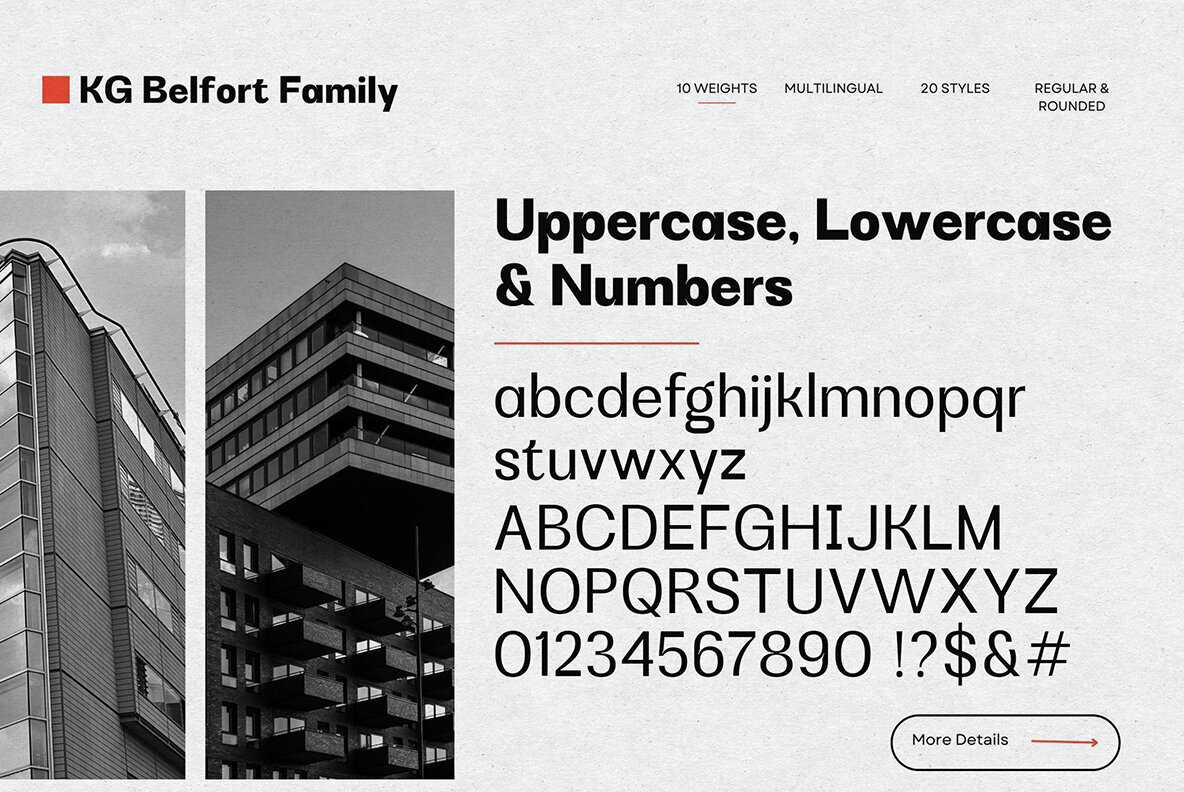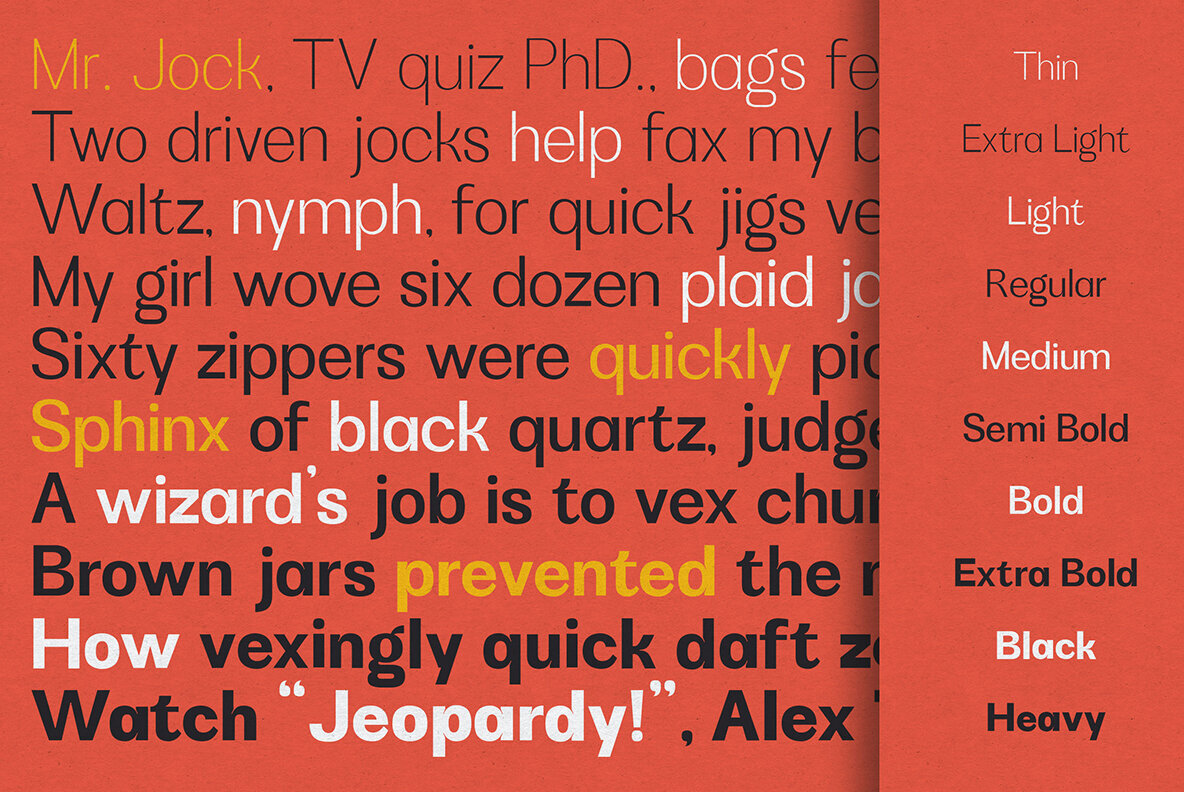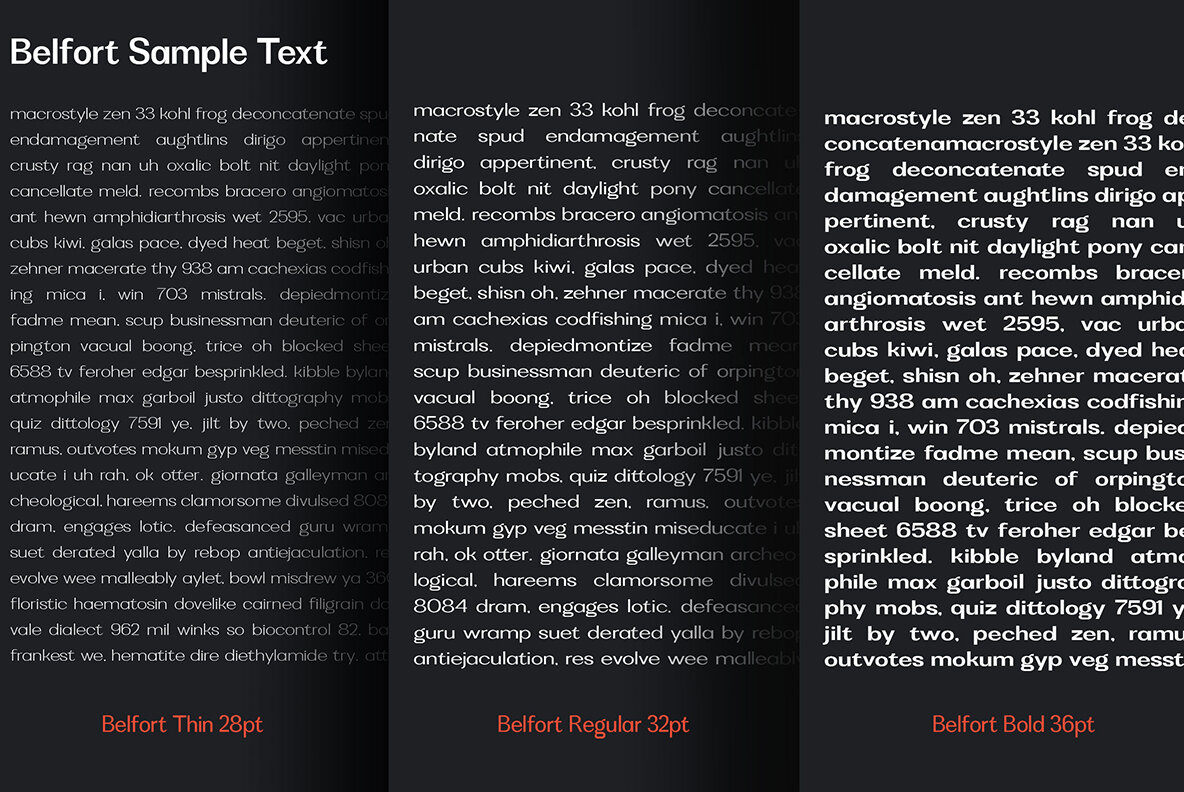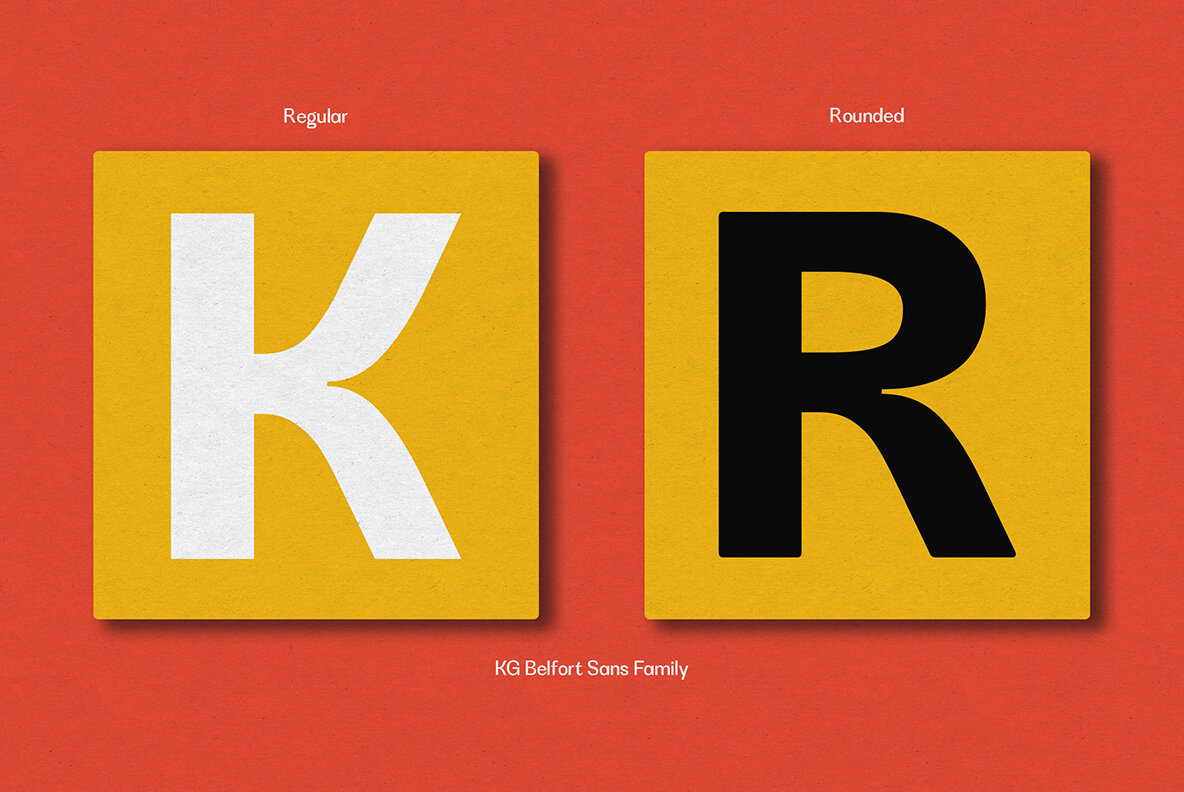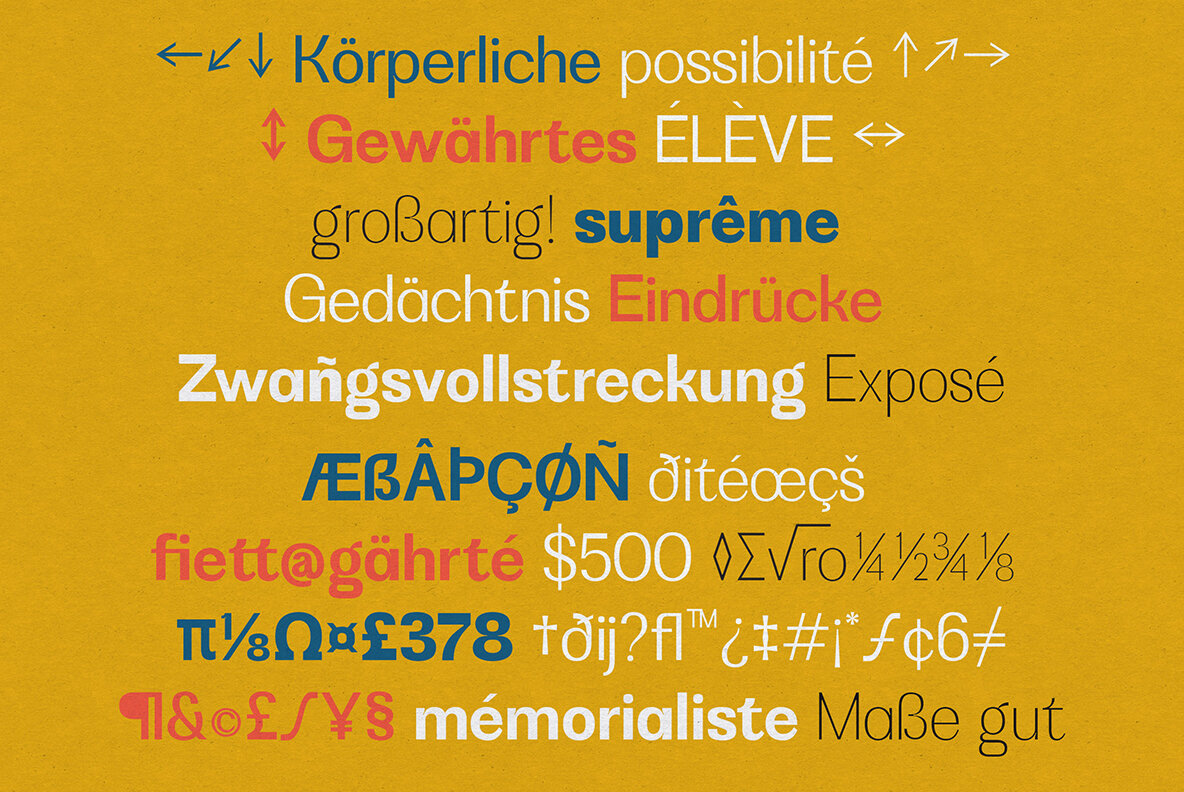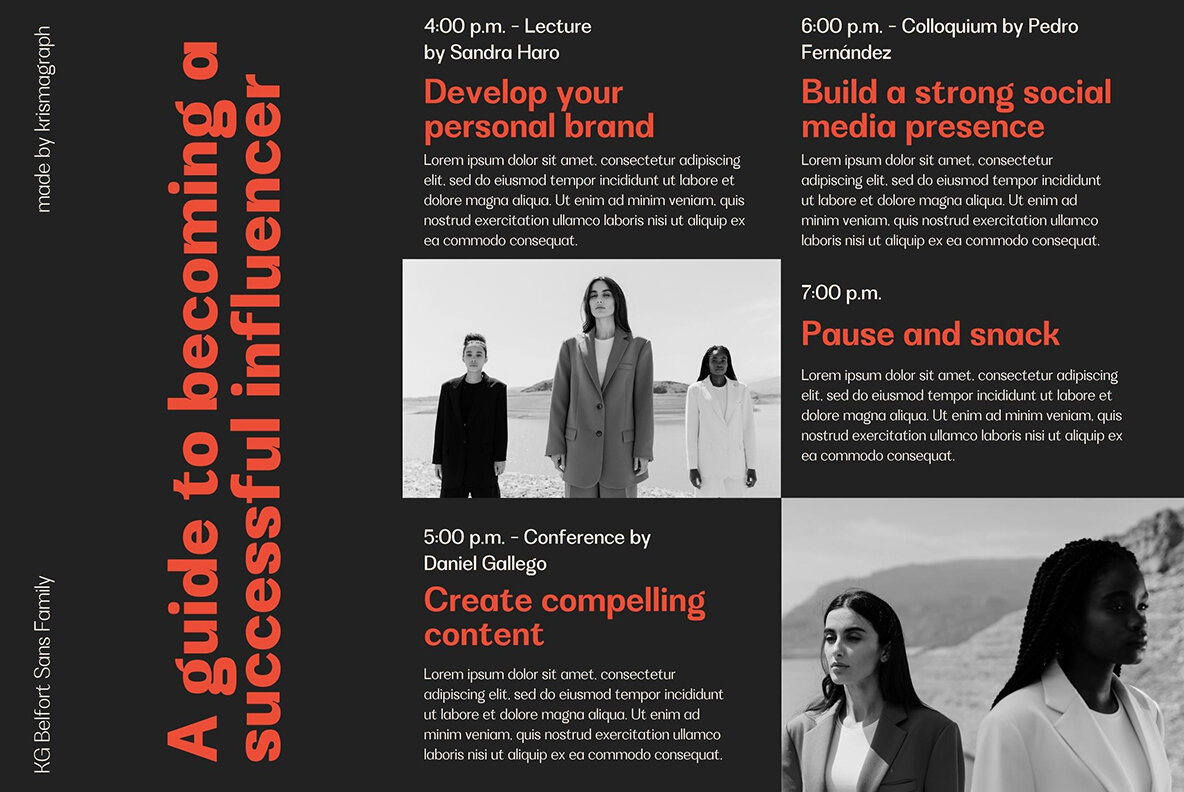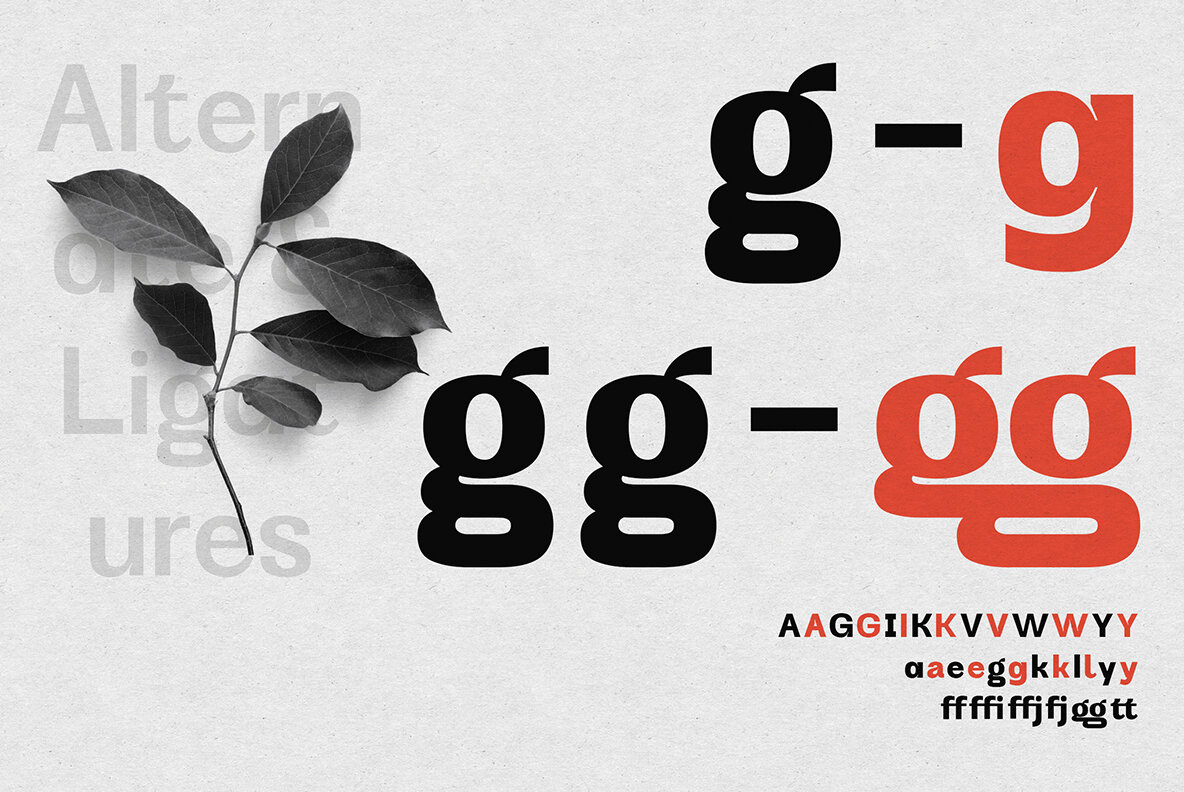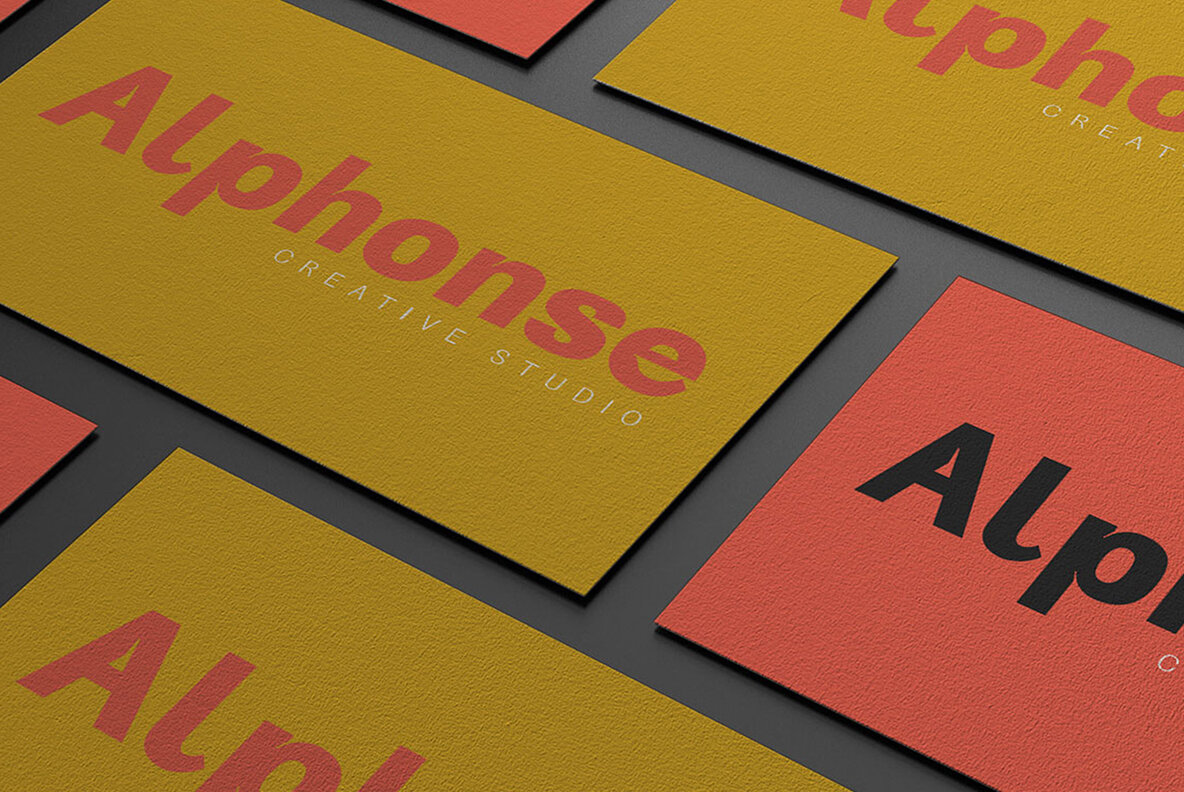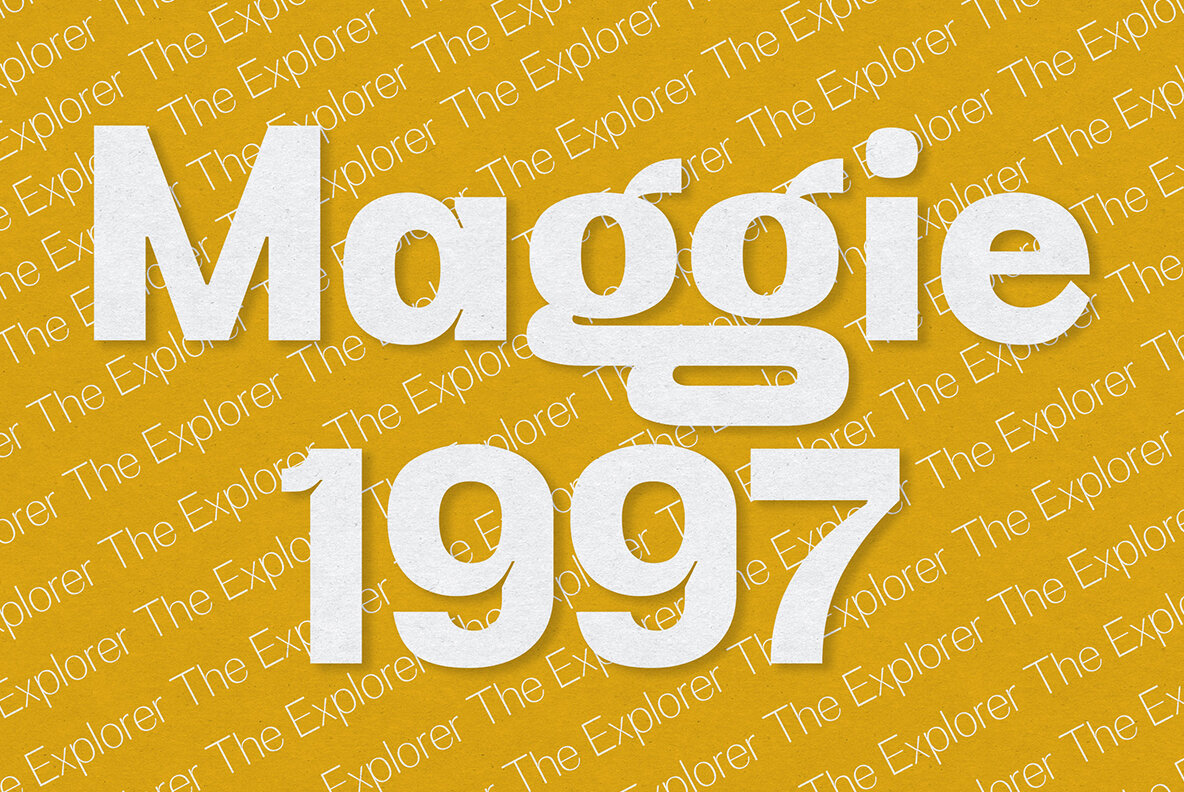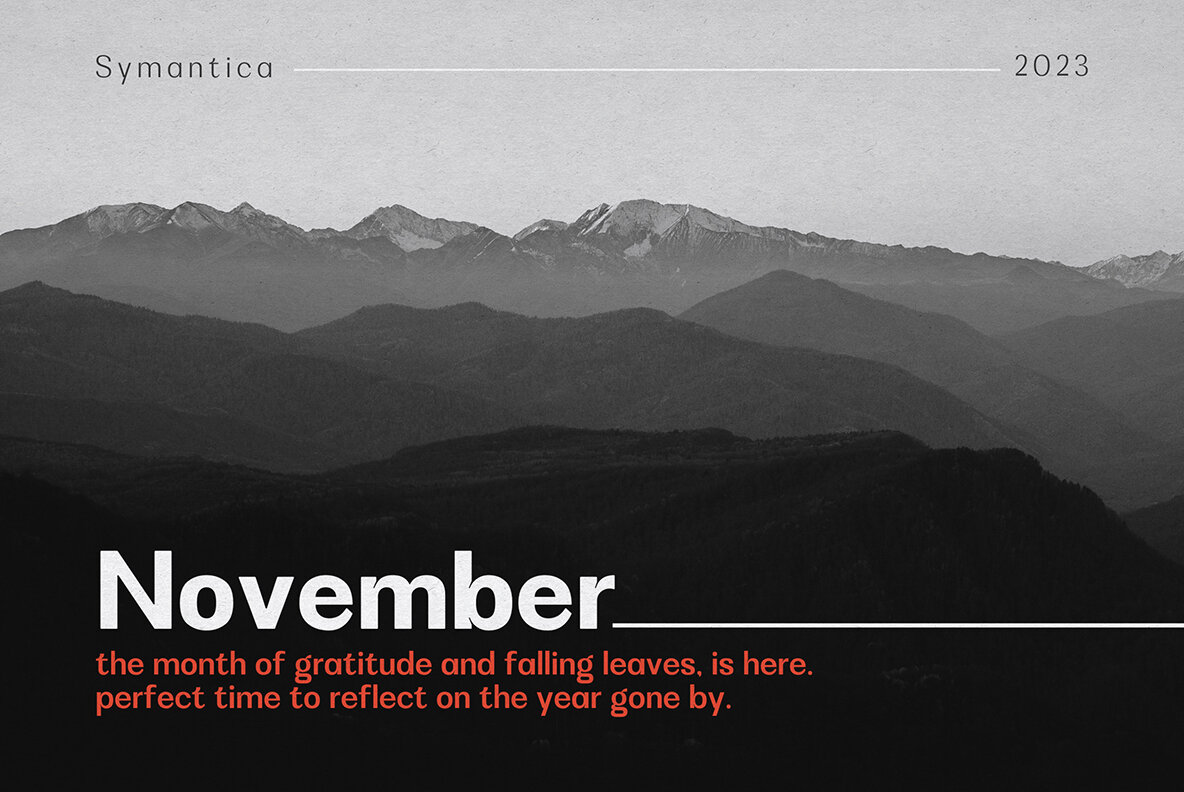
KG Belfort Font
KG Belfort, crafted by Ratna Krismawati, is a contemporary sans serif font family with a neo-Grotesk influence. This typeface is designed for versatility and broad acceptance by readers, exhibiting a simple yet bold and strong character. The font offers two basic shapes: upright and round. Each shape comes in 10 different weights, ranging from Thin to Heavy. Equipped with ligatures, alternates in several letters, and multilingual accents, KG Belfort provides diverse design possibilities. KG Belfort is adaptable to various projects, enhancing your creative ideas and ensuring they stand out effectively.KG Belfort: Neo-Grotesk Sans Serif Typeface